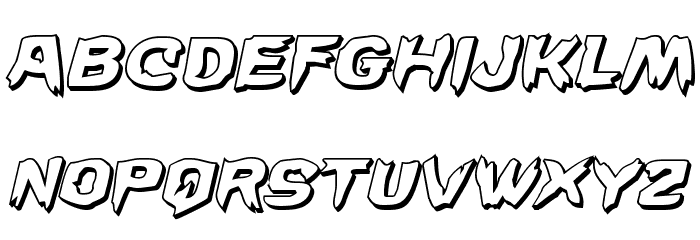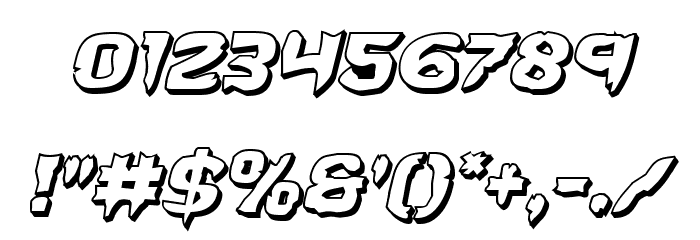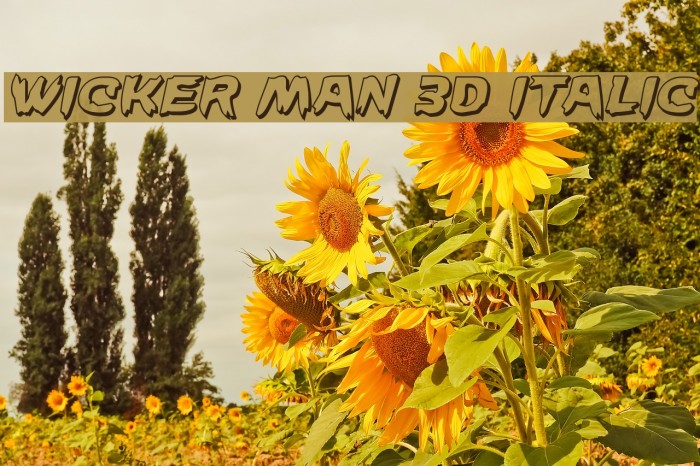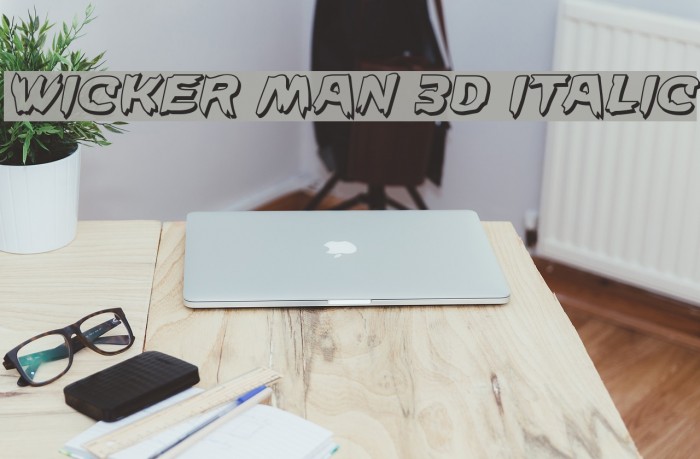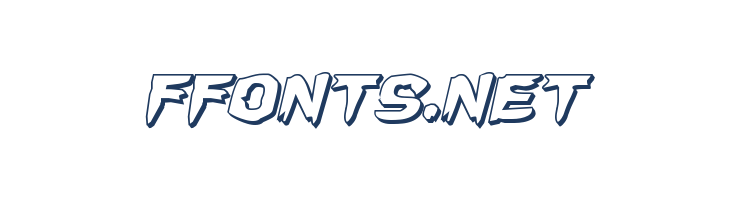
Wicker Man 3D Italic Font
This font features a bold, dynamic 3D effect with sharp, angular edges, giving it a sense of movement and energy. The italicized style adds to its dynamic appearance, making it stand out with a unique flair. The letters are thick and robust, with a shadow effect that enhances the three-dimensional look. This font is perfect for grabbing attention and making a statement, suitable for projects that require a bold and impactful visual presence. The characters are well-defined, with a consistent style that maintains readability despite its decorative nature.
A bold, 3D italic font with sharp, angular edges and a dynamic style.
- Proposed Projects: Ideal for posters, video game titles, movie covers, and any design needing a bold, eye-catching font.